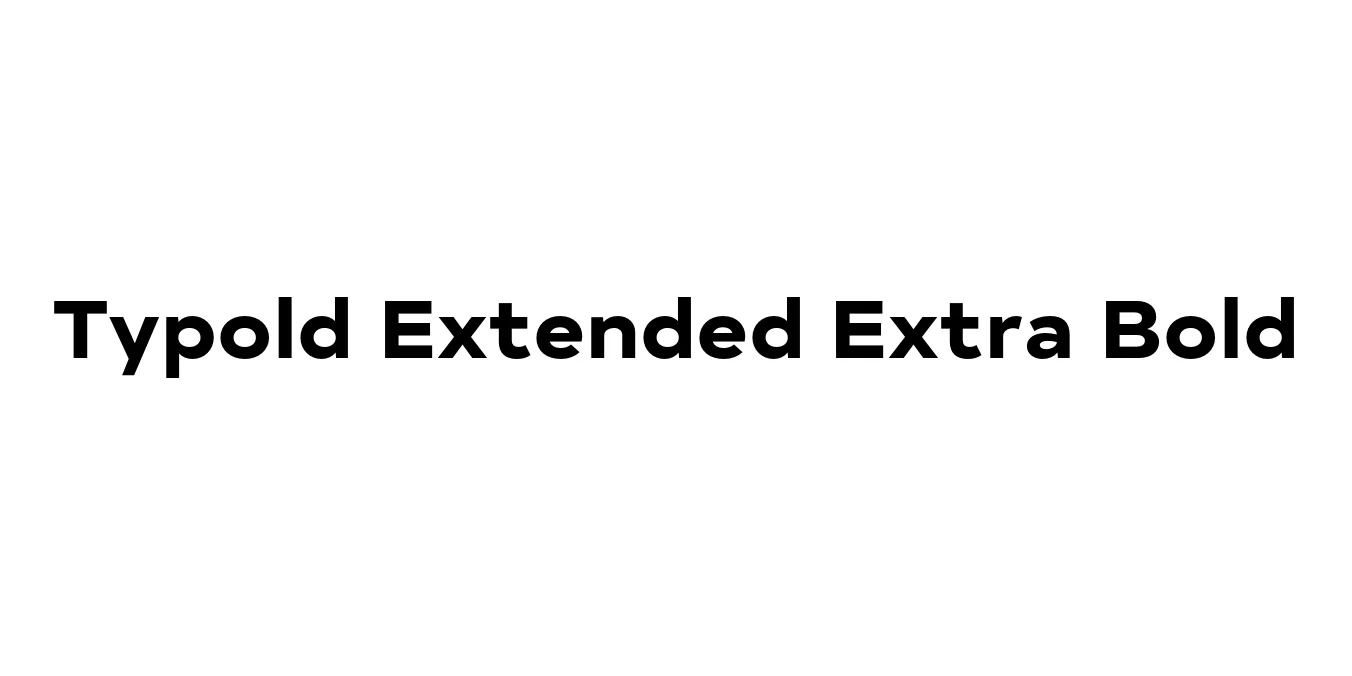
Typold Extended Extra Bold
Designed by Jonathan Hill
Typold Extended Extra Bold is a sophisticated evolution of the geometric sans-serif tradition, meticulously crafted by Jonathan Hill of The Northern Block. This typeface is characterized by its wide horizontal proportions and heavy weight, which together create a commanding presence on the page or screen. The design focuses on mathematical precision combined with subtle optical adjustments to ensure clarity and balance even at its most extreme widths, making it a staple for contemporary graphic designers seeking a bold, structural aesthetic.
Historically, the Typold family was developed to provide a versatile toolkit for modern branding and digital interface design. The Extended Extra Bold variant specifically pushes the boundaries of the family's skeletal structure, offering a powerful horizontal rhythm that is ideal for large-scale applications. Its clean lines and robust letterforms allow it to excel in minimalist environments while maintaining a distinct personality that resonates with themes of technology, architecture, and forward-thinking industry.
Typold Extended Extra Bold Best Uses
Excellent for creating powerful, modern logos and visual identities.
Perfect for high-impact titles and pull-quotes in magazine layouts.
Ideal for hero sections, headers, and bold calls to action.
Highly effective for wayfinding and large-scale environmental graphics.